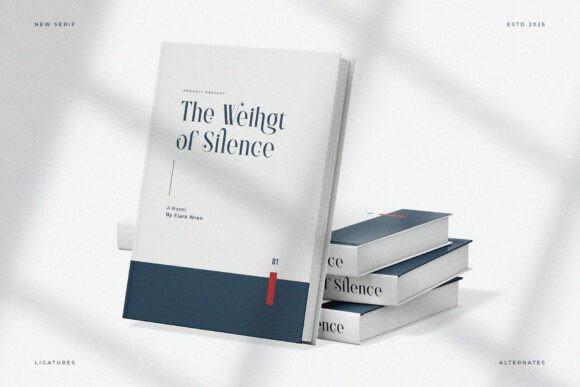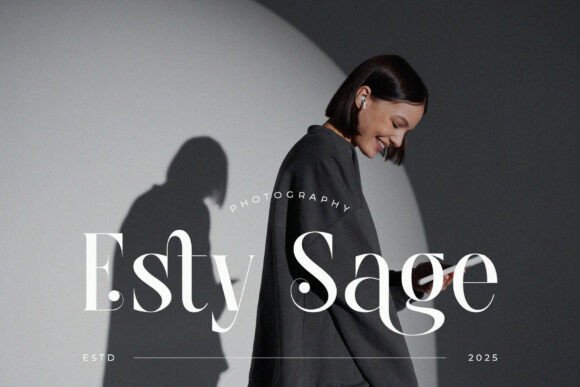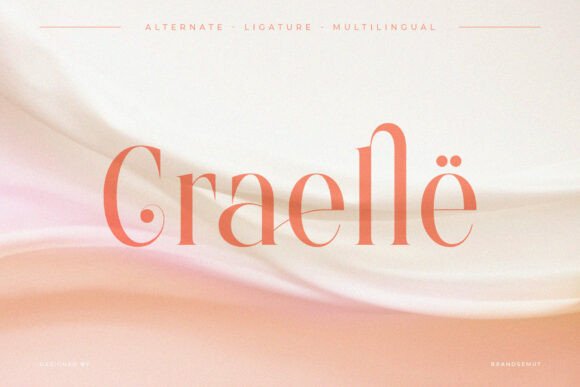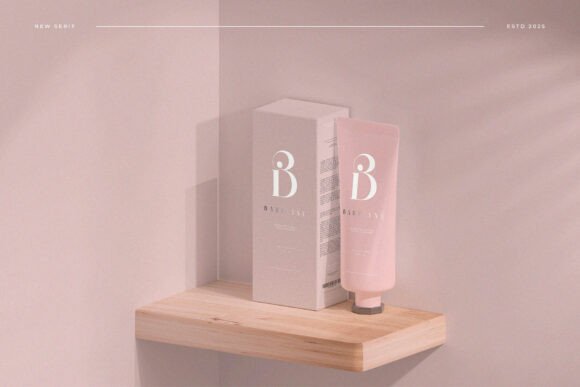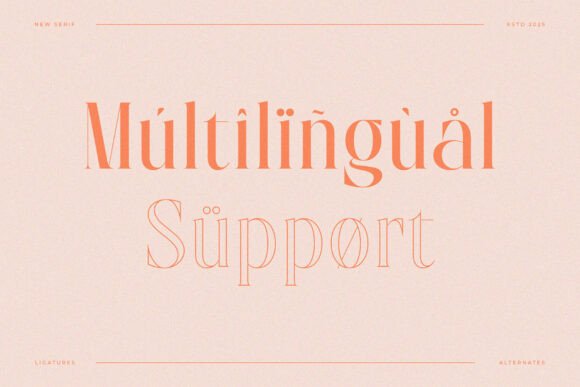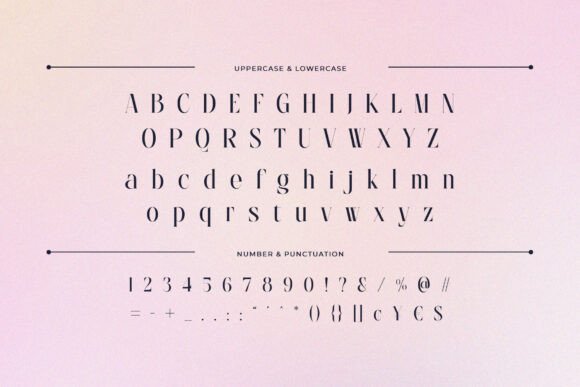
Introduction to Quttle Font
Have you ever stared at a blank canvas, wondering how to elevate your creative project with the perfect typography? You know, that moment when a single font can make all the difference between a dull design and a show-stopping masterpiece. For designers, finding the right font can be a game-changer. That’s why we’re excited to introduce you to Quttle Font – a stunning display serif typeface that’s about to take your designs to the next level.
With its high contrast between thick and thin strokes, refined curves, and meticulously designed terminals, Quttle Font is the perfect addition to any design resource. Whether you’re working on a magazine layout, fashion lookbook, or product packaging, this elegant and modern display serif typeface is sure to impress. And the best part? Quttle Font is designed for professional use, making it a valuable asset for any designer looking to create high-quality designs with a clean yet expressive typographic style.
Key Features of Quttle Font
- High-quality design for creative projects: Quttle Font is perfect for designers looking for a unique and stylish font to enhance their designs.
- Unique characteristics: Quttle Font features a distinctive, hand-drawn design with a modern twist, setting it apart from other fonts in its class.
- Perfect for digital designs: With its clean and minimalist design, Quttle Font is ideal for use in digital designs, such as logos, icons, and graphics.
Honest Review: Quttle Font
What works well for the Quttle Font is its unique, quirky aesthetic, making it perfect for projects that require a touch of whimsy. The font is versatile and can be used for a variety of applications, from branding to typography-based art.
- ✨ High-quality design: The Quttle Font is crisp and clear, making it suitable for both digital and print use.
However, there are a few limitations to consider. The font is only available in a limited range of weights, which may not be suitable for projects that require a wide range of typography options.
Overall, I’m impressed with the Quttle Font’s potential and would recommend it to designers looking for a unique and high-quality design resource. While it may have its limitations, the font’s strengths far outweigh its weaknesses.
The Quttle Font is perfect for creative projects such as logos, posters, and social media graphics. It’s also great for use in presentations, documents, and websites. The high-quality design and transparent background feature make it a versatile design resource.